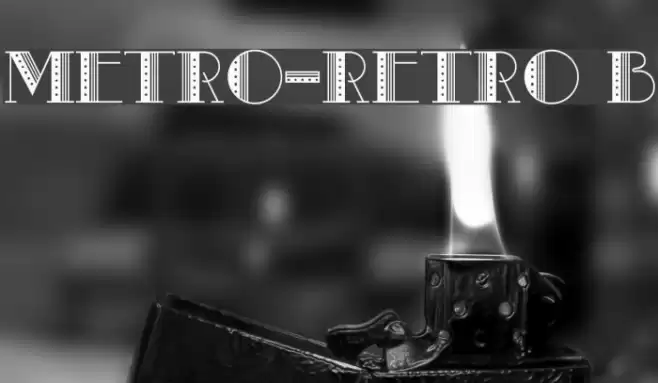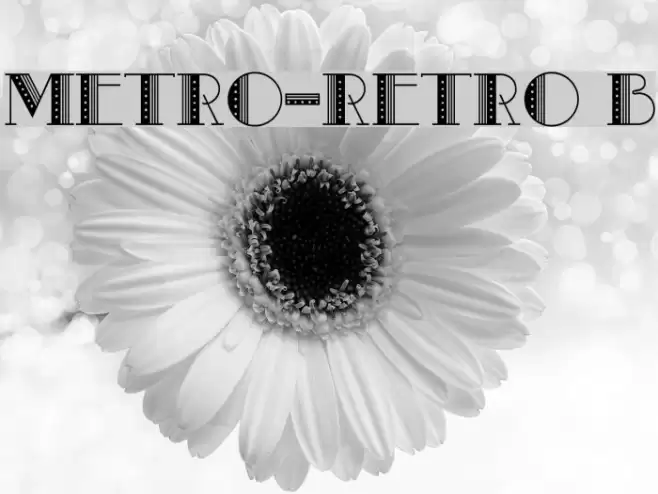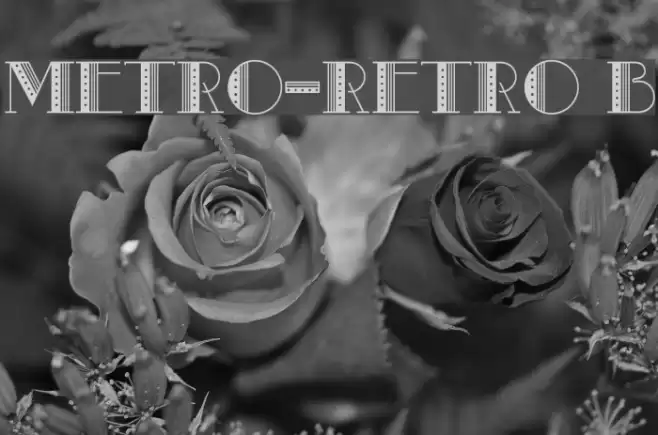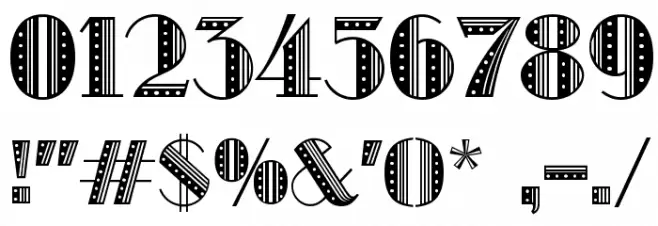
Metro-Retro B Font
Metro-Retro B Description
This font features a bold, decorative style with a distinct retro flair. Each character is adorned with intricate patterns and lines, reminiscent of vintage marquee lights. The uppercase and lowercase letters maintain a consistent design, with vertical stripes and dots adding depth and texture. The numerals and special characters follow the same ornate theme, making them stand out with their unique embellishments. This font's playful yet sophisticated appearance makes it ideal for projects that require a touch of nostalgia and creativity.
A bold, decorative font with a retro, marquee-inspired design from Uncategorized fonts.
- Proposed Projects: Ideal for vintage-themed posters, retro branding, event invitations, and creative logos.
- Overall Style: Vintage